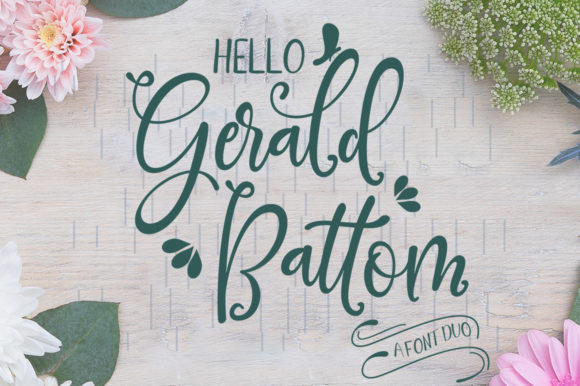
Gerald Battom Font
Introducing Gerald Battom Font: The Script Sans Duo That Will Embellish Your Creations
Welcome to the world of Gerald Battom Font, where elegance meets creativity. This exquisite script sans font duo is the brainchild of the talented rotterlabstudio, meticulously crafted to elevate your designs to new heights.
With Gerald Battom Font, you'll discover a realm of possibilities for your wedding invitations, greeting cards, branding, and any other project that calls for a touch of grace and sophistication. Its flowing lines and delicate curves will add an irresistible charm to your words, captivating your audience and leaving them spellbound.
This font duo is not merely a collection of letters; it's an invitation to embark on a creative odyssey. Let Gerald Battom Font guide you as you craft breathtaking wedding invitations that will become cherished keepsakes. Envision your loved ones' faces as they receive these exquisitely designed invitations, their hearts fluttering with anticipation.
Beyond weddings, Gerald Battom Font will lend its charm to your greeting cards. Imagine sending heartfelt messages to your friends and family, adorned with the elegance of this font. Whether it's a birthday wish, a thank-you note, or simply a message to brighten their day, your words will resonate with even greater warmth and sincerity.
But Gerald Battom Font's versatility doesn't end there. Unleash its potential for branding and elevate your business to new heights. This font duo will add a touch of sophistication to your logo, website, and marketing materials, creating a lasting impression that will set you apart from the competition.
With Gerald Battom Font, you'll discover a world of endless creative possibilities. It's the perfect tool for designers, calligraphers, and anyone who seeks to add a touch of magic to their projects. Let your imagination soar and create breathtaking designs that will leave an unforgettable mark.